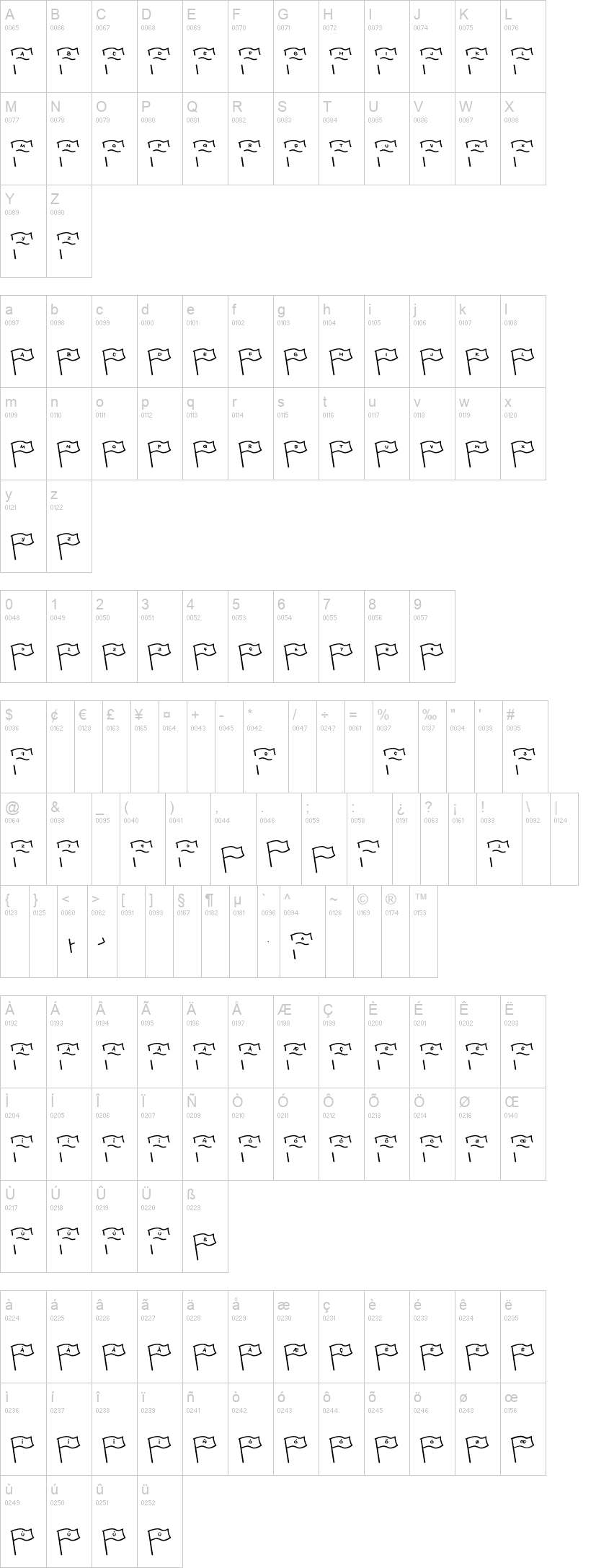
Flagsy is a fun decorative flag font!
This font only contains letters and numbers. No symbols or punctuation.
For flags all on the same level, just use the lowercase.
For bouncy flags, alternate between uppers and lowers.
Use the less than < symbol before an uppercase character to start a word.
Use the greater than > symbol after an uppercase character at the end of a word.
To create bouncy numbers, use shift+ that number. So:
! = 1
@ = 2
# = 3
$ = 4
% = 5
^ = 6
& = 7
* = 8
( = 9
) = 0
For a COMPLETE empty upper flag, use . period
For an empty lower flag use , comma
For a JOINING empty upper flag, use : colon
For a joining empty lower flag, use ; semicolon